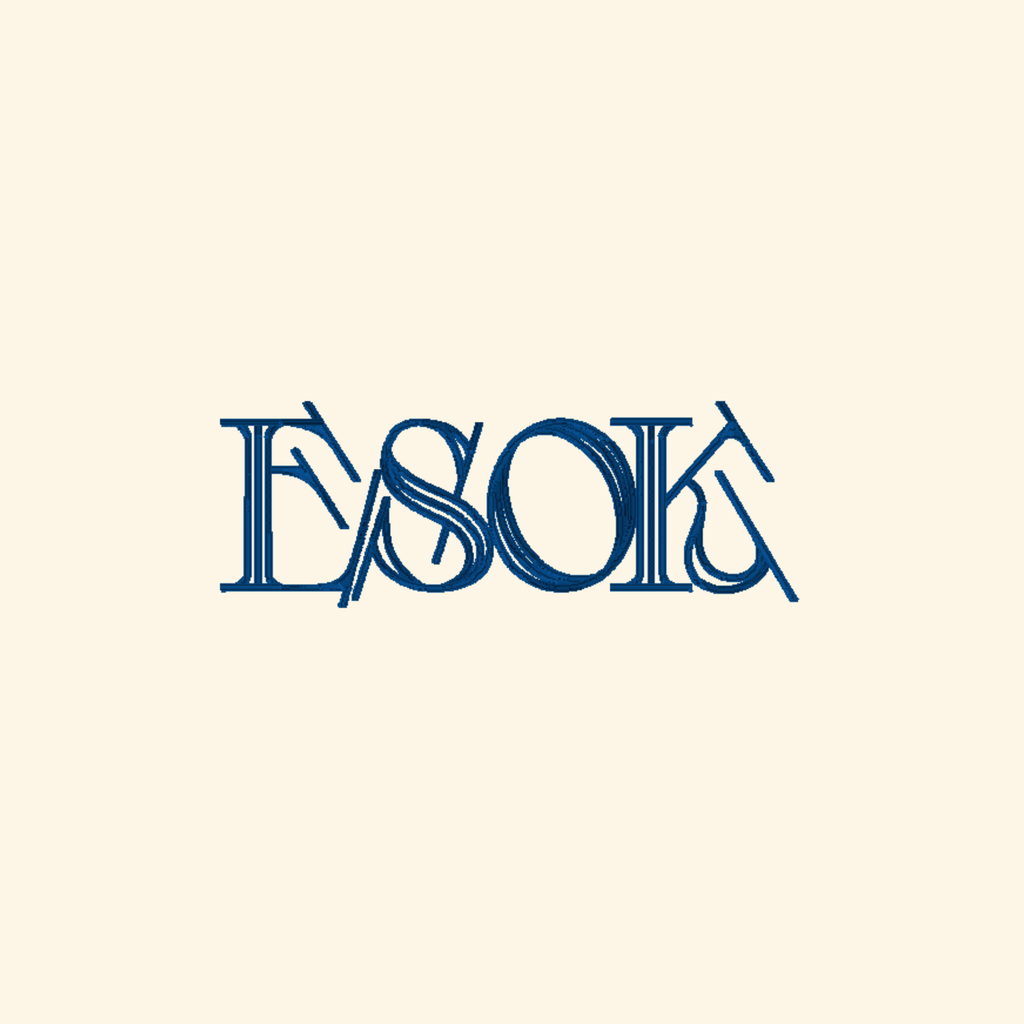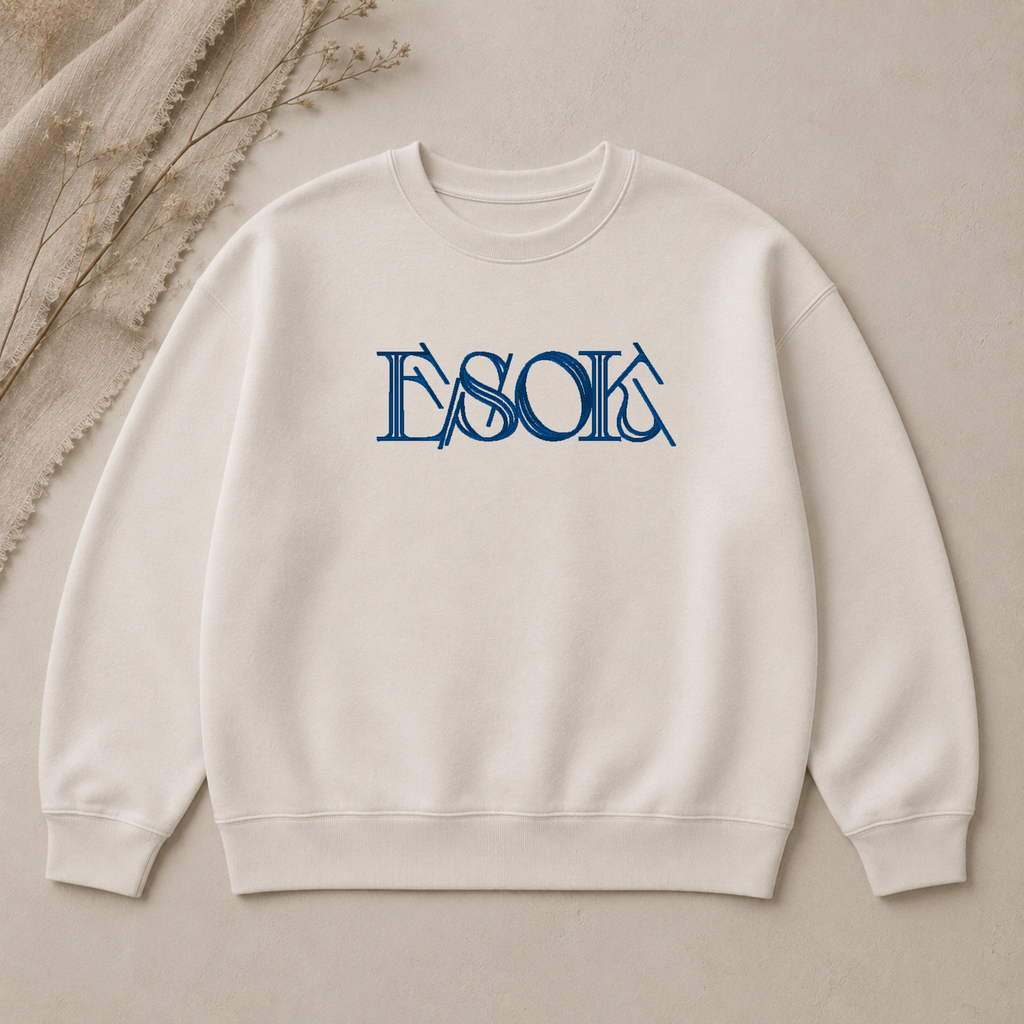
Esok embroidery font, Unusual serif font, Machine embroidery font, 7 Formats + 7 Sizes
🪡Esok - premium embroidery font.
Take your projects to the next dimension with Esok - professional machine embroidery alphabet! Specially digitized for high-impact results, this font is the perfect choice for creating any item that requires embroidery.